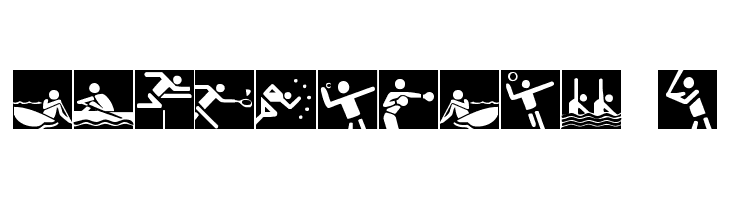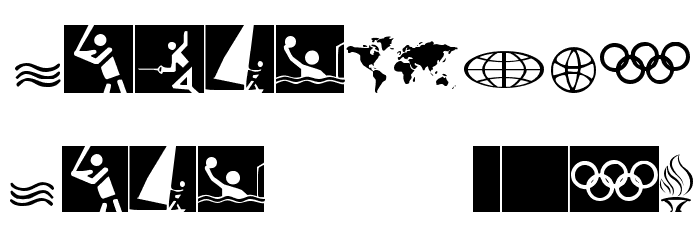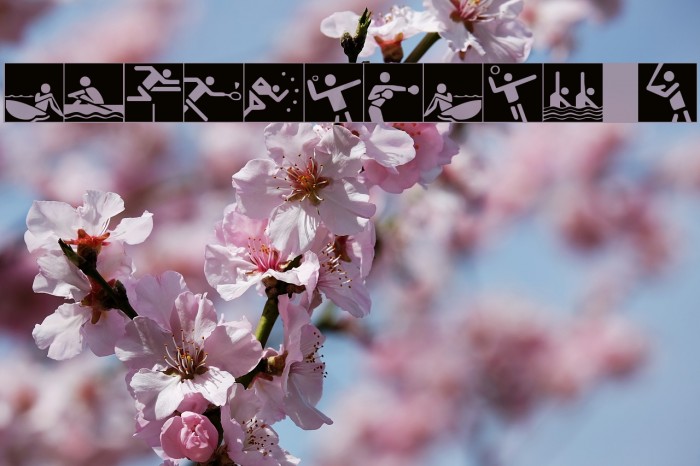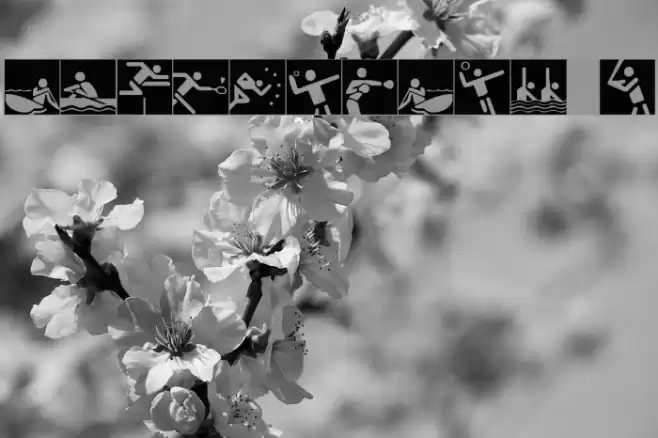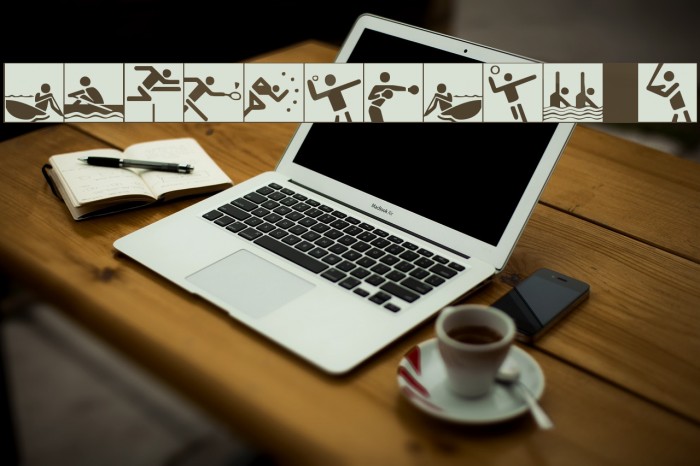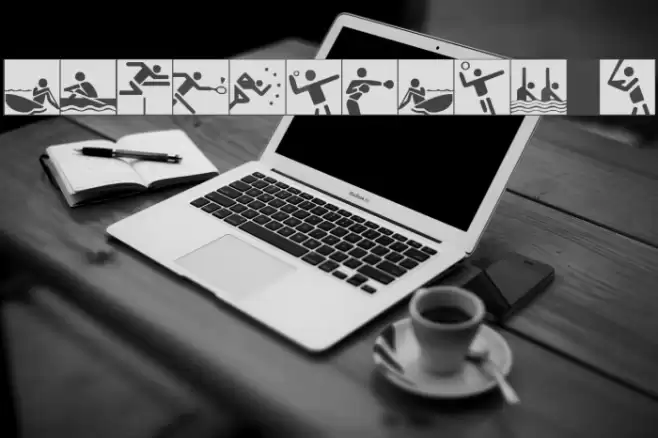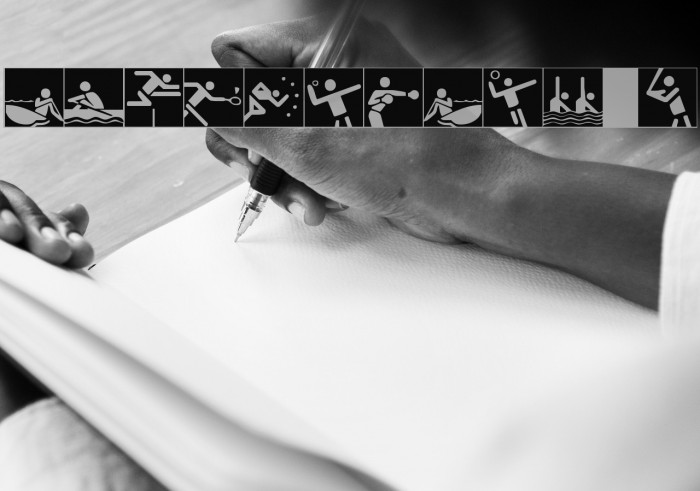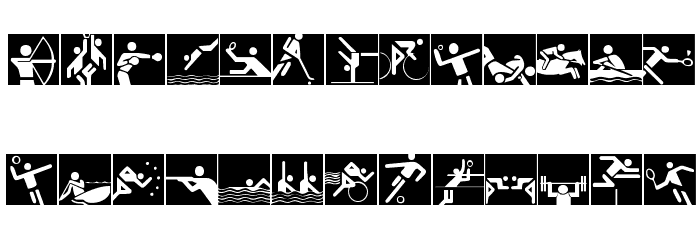
Olympicons 2 Font
Olympicons 2 Description
A pictogram-based icon set representing various Olympic sports and symbols, using simplified human figures and equipment in white on black square backgrounds. The icons are highly stylized, geometric, and easily recognizable, designed for quick visual identification of sports and Olympic themes.
A geometric pictogram icon set for Olympic sports and symbols from sports fonts.
- Proposed Projects: Event signage, sports infographics, Olympic-themed posters, educational materials, wayfinding systems, digital dashboards.
- Overall Style: Modern, Minimalist, Functional
- Use Case: Icons, Signage, Infographics, Branding